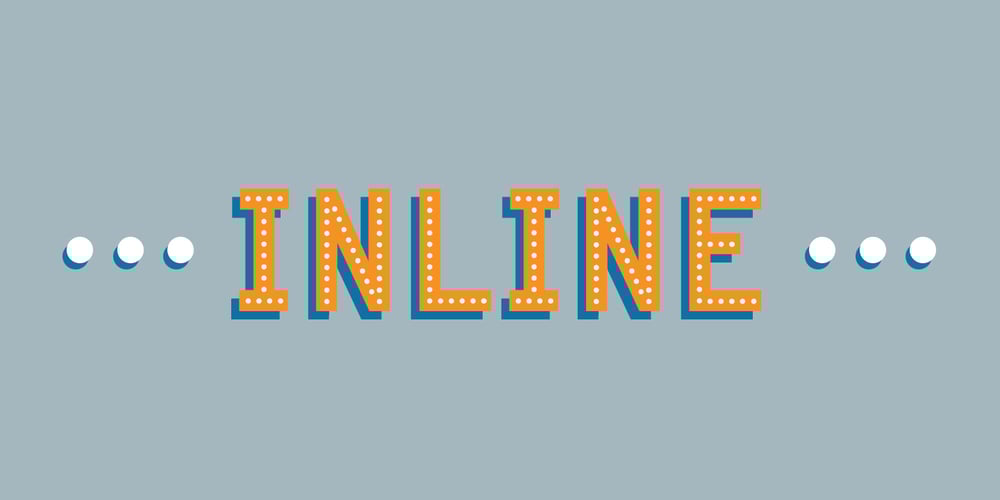
Fosho
Fosho font
Fosho Font Family was designed by Chank Diesel and published by Chank. Fosho contains 3 styles and family package options. For more than 70 years the 10-foot tall letters displaying the word FOSHAY have illuminated the Foshay Tower in the Minneapolis skyline. However, the typestyle has never been made into a font before. This new modern font family, dubbed Fosho Book, is optimized for book print usage as well as functioning as big bold display type on screen. The Fosho fonts are available in three styles: Outlines, Dotted Bulb Inlines and Composite with both. You can use the three styles in overlapping colors for dramatic chromatic effects.